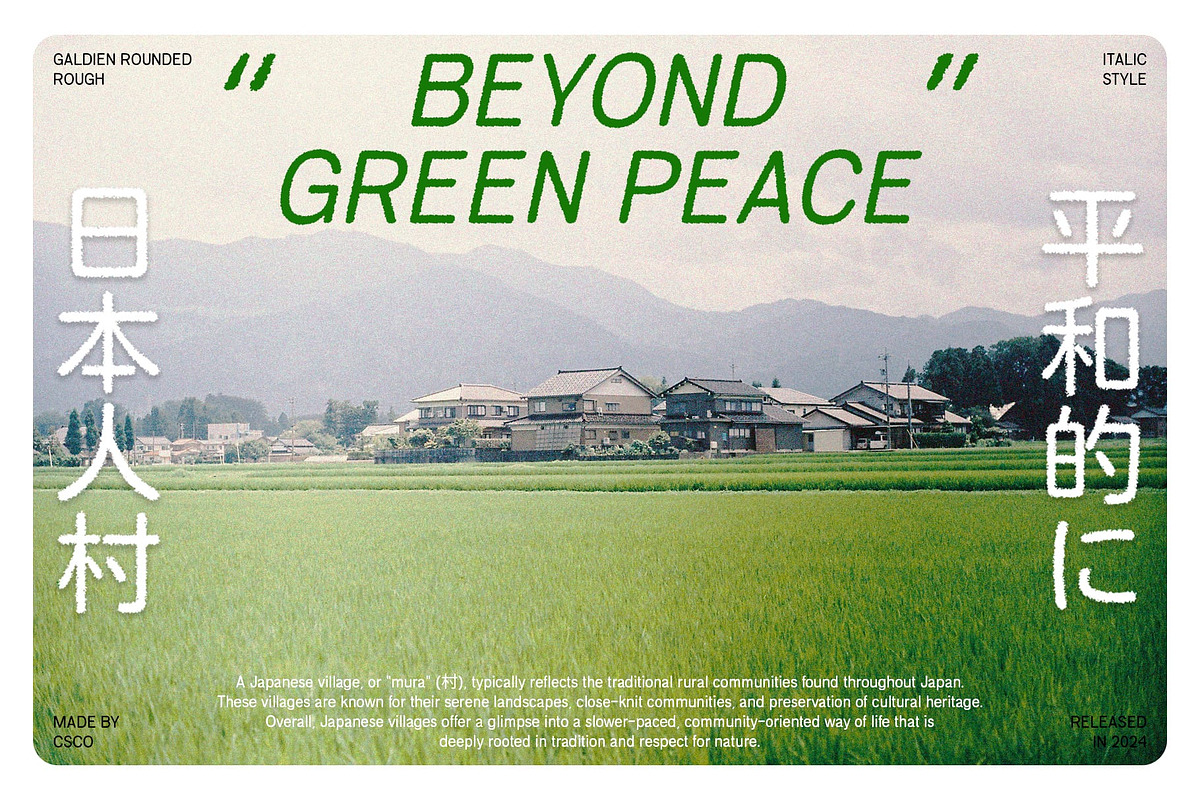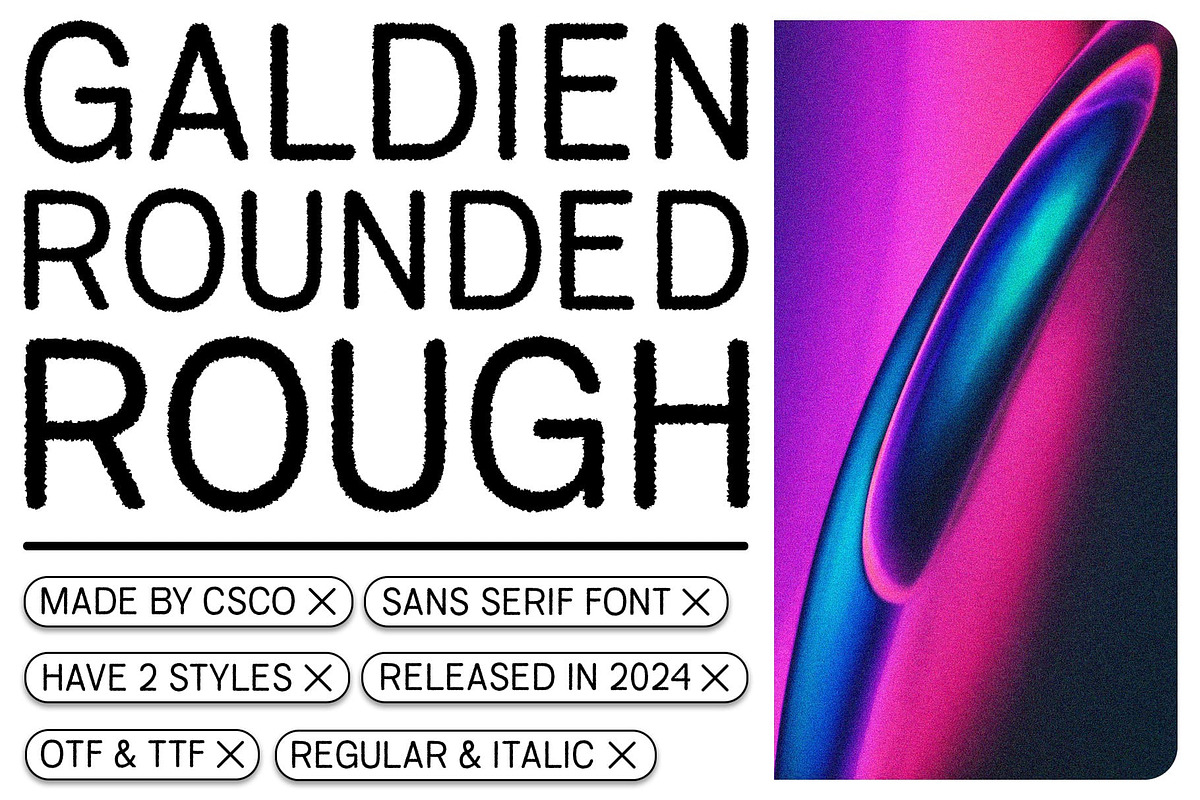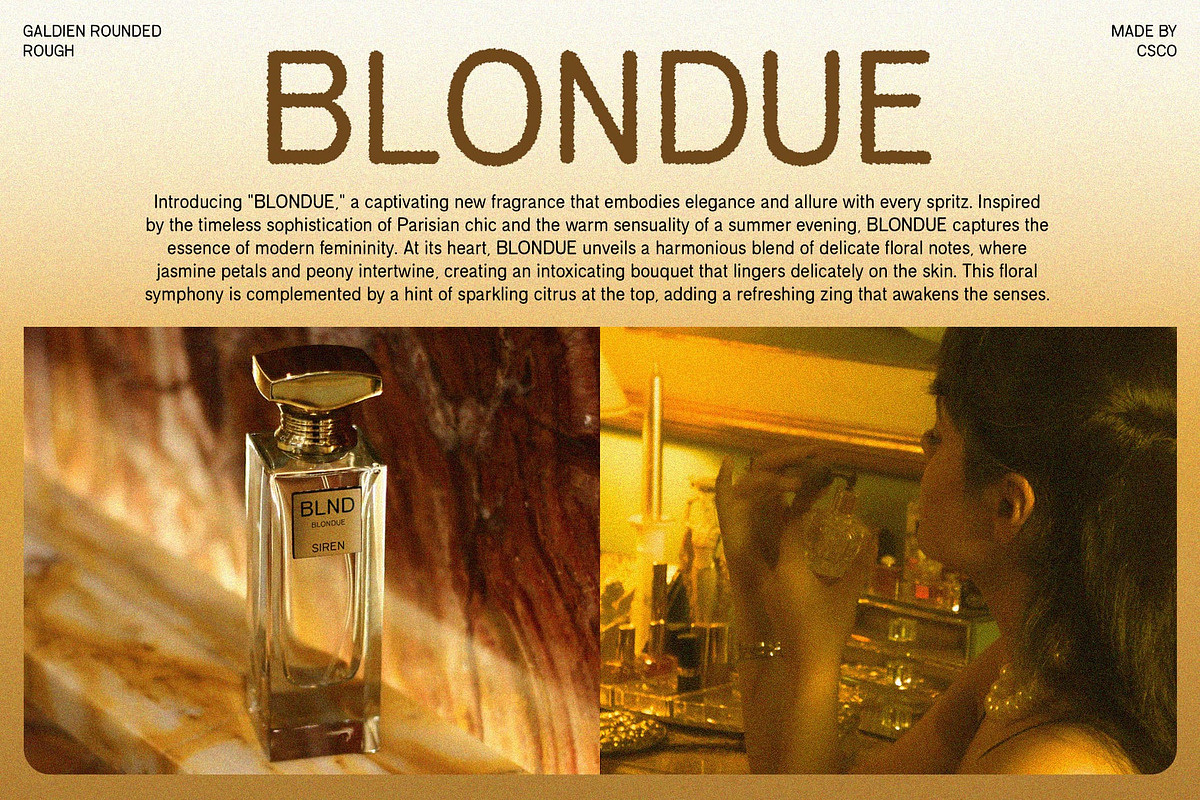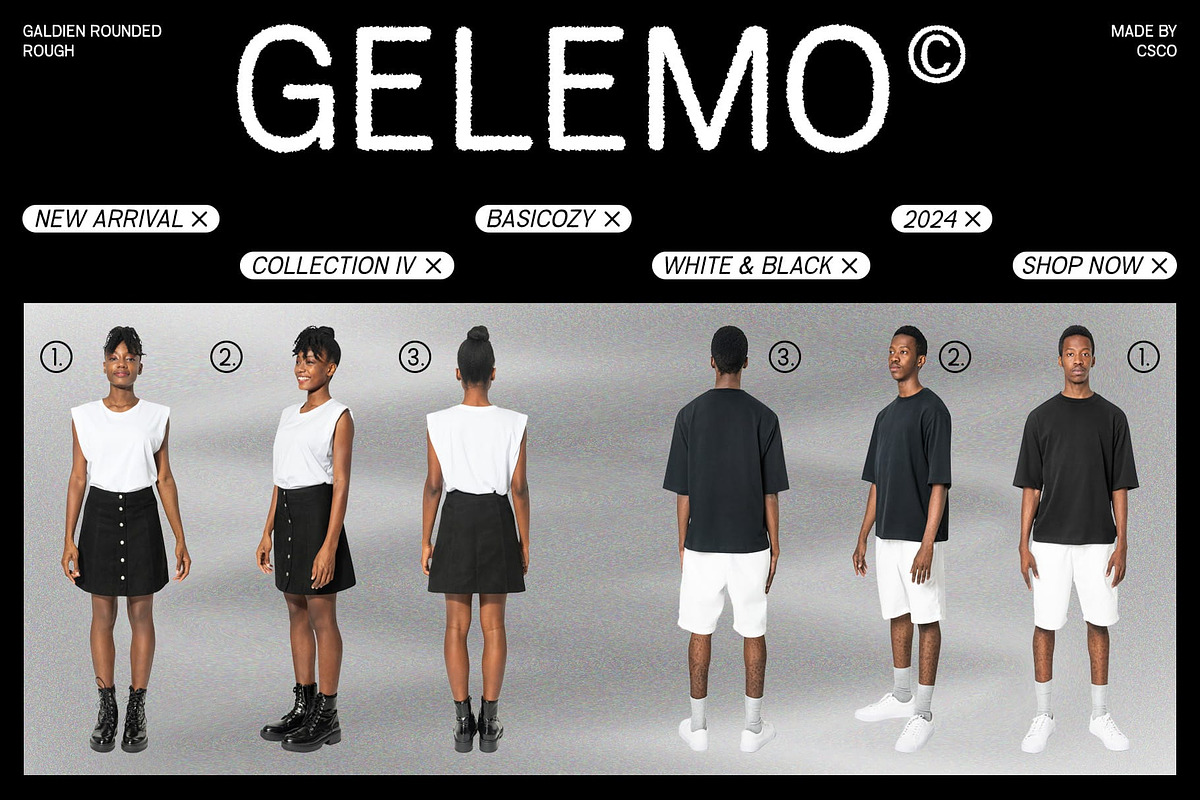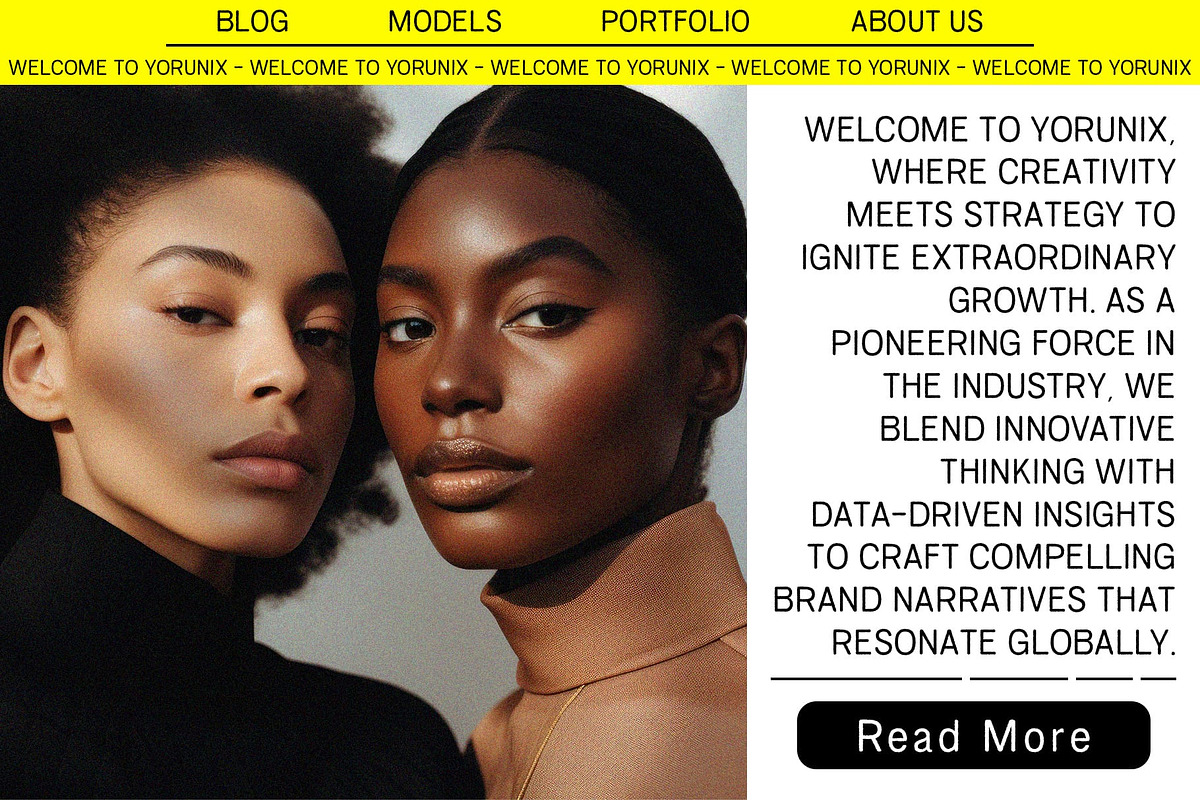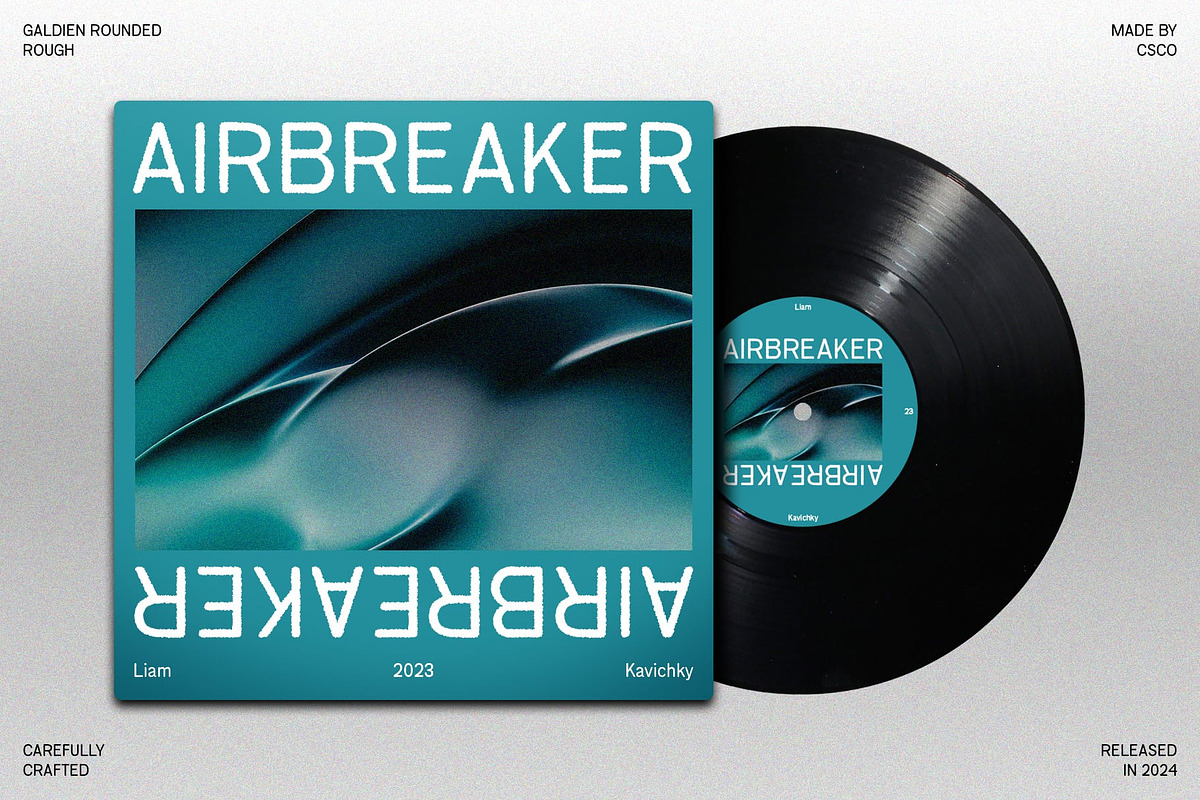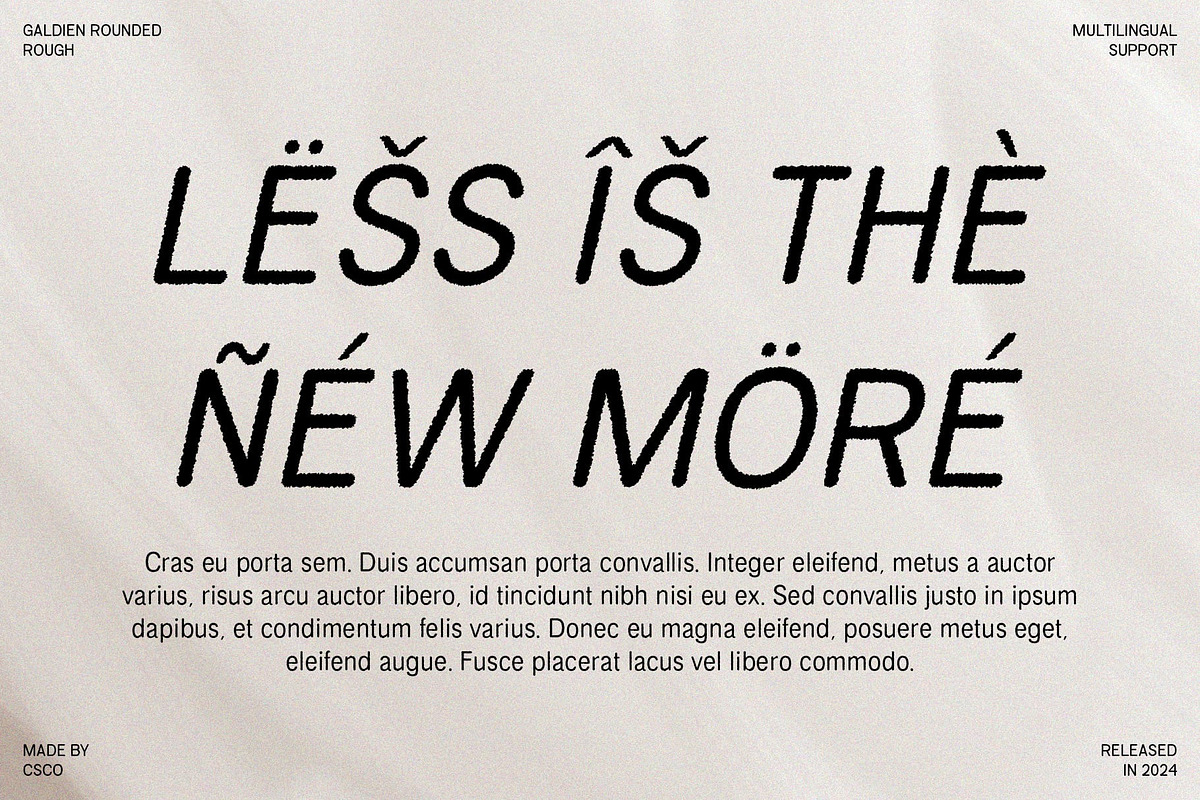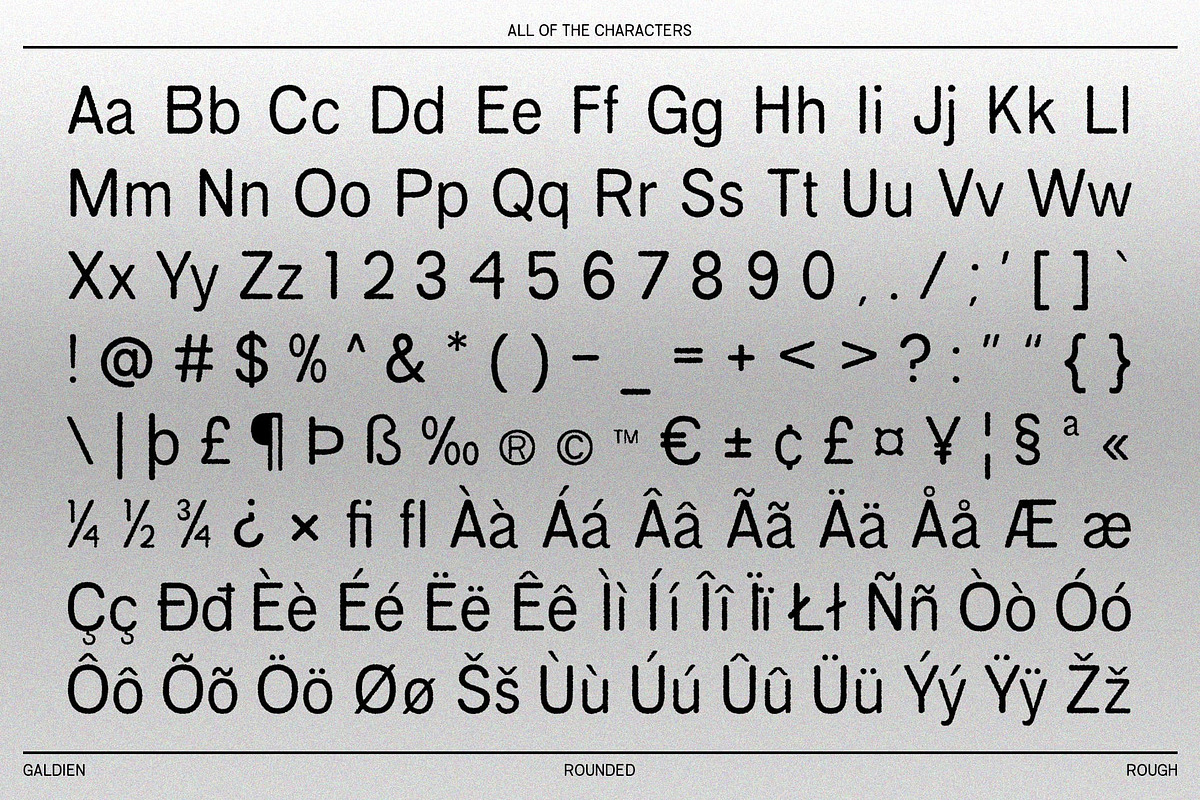
Galdien Rounded Rough
Galdien Rounded Rough: Modern Sans-Serif Font
Contemporary Sophistication with Raw Texture Galdien Rounded Rough is a modern sans-serif font that combines the sleek, professional look of a grotesque style with a distinctive rough effect. This unique blend creates a font that exudes contemporary sophistication while adding depth and character through its textured appearance.
Clean Lines and Balanced Proportions The font’s clean lines and balanced proportions provide a sleek and professional look, making it versatile for a wide range of applications. The rough texture introduces a raw, tactile element that enhances visual interest and sets it apart from more traditional sans-serif fonts.
Ideal for Edgy Branding and Modern Layouts This font is perfect for edgy branding, modern editorial layouts, and creative digital designs. Its unique combination of sleekness and texture makes it a standout choice for projects that require a touch of sophistication and raw appeal. Whether you’re working on branding, editorial spreads, or digital media, this font offers a distinctive and memorable touch to your designs.